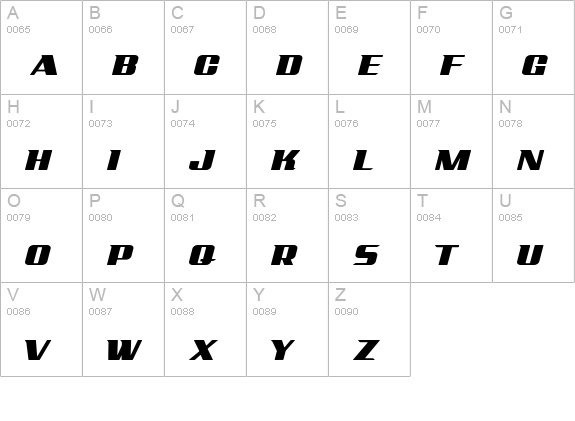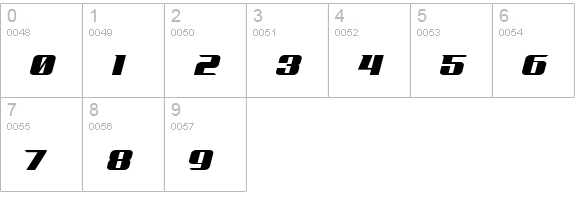
AddCityboy Normal Font Details
AddCityboy Normal is the standard, neutral variant in the AddCityboy typeface family \xE2\x80\x94 well suited to general body text, paragraphs, and standard typographic work.
AddCityboy Normal font is a stylish and modern typeface that exudes a cool and urban vibe. With its clean lines and contemporary design, this font is perfect for projects that require a touch of sophistication and edginess. The sleek and streamlined look of AddCityboy Normal font makes it versatile for a wide range of design applications, from branding to advertising to social media graphics. Best of all, AddCityboy Normal font is available for free download at FontsMarket.com. This means you can easily add this trendy font to your collection without any cost. Don't miss out on the opportunity to elevate your designs with the sleek and modern aesthetic of AddCityboy Normal font. Download it today and start creating stunning visuals that stand out from the rest.